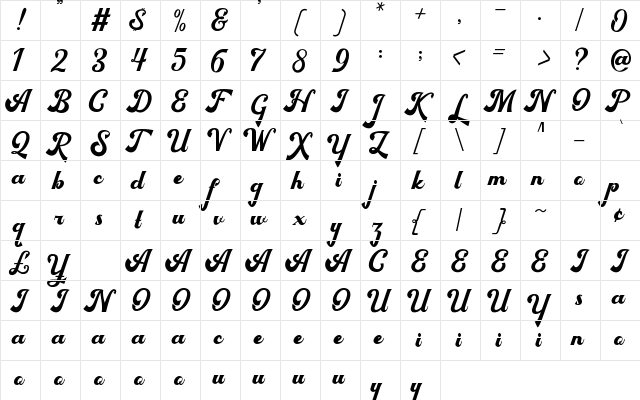
Bigfun Demo Regular
Design Context for Bigfun Demo Typeface
Bigfun Demo trades formality for fun, with bouncy, characterful letterforms that bring warmth and energy to any project.
Font Pairing: Pairs well with a rounded or humanist sans for body copy, maintaining the friendly tone without relying on Bigfun Demo to carry extended reading.
Pro Tip: Avoid using Bigfun Demo for long passages of text — it works best for headlines, labels, and short calls to action.